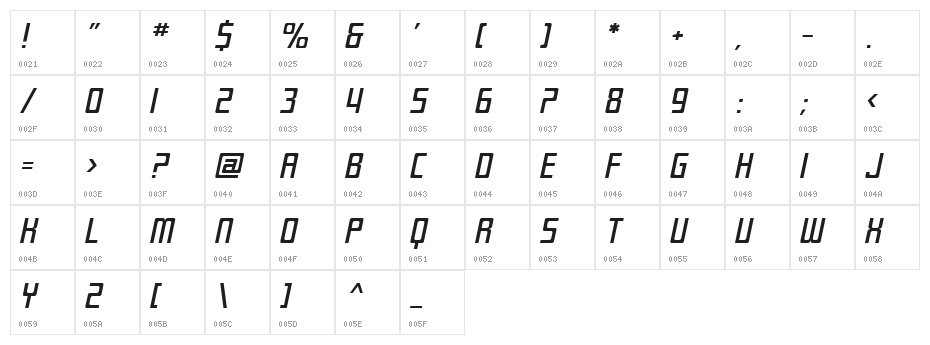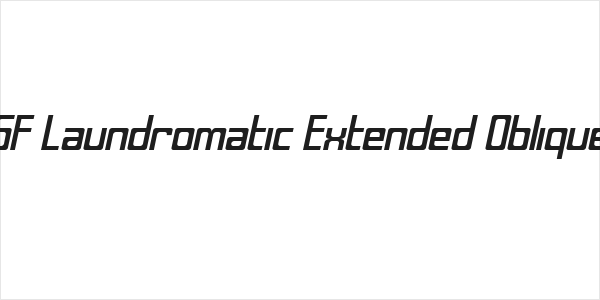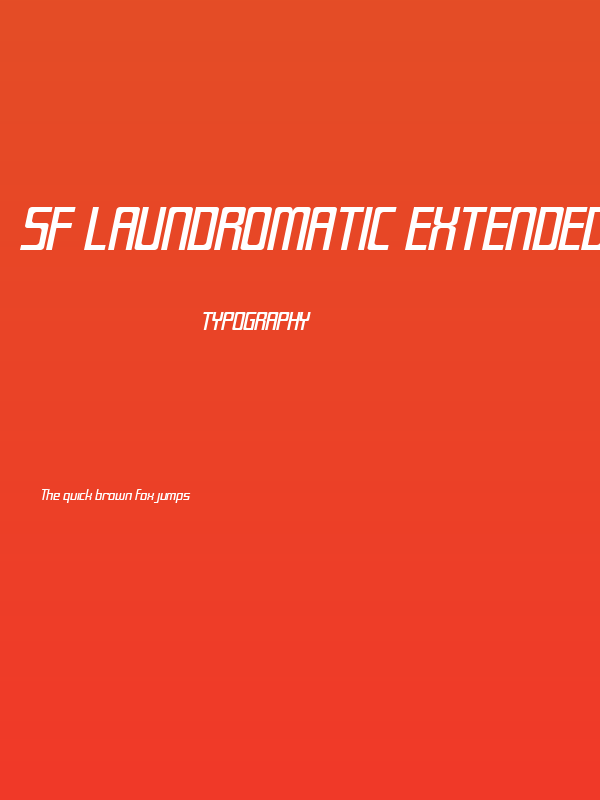
SF Laundromatic Extended Oblique Font
SF Laundromatic Extended Oblique Description
This font features a modern, futuristic design with an extended and oblique style. The characters are sleek and angular, giving a sense of motion and speed. The uppercase and lowercase letters maintain a consistent geometric form, while the numerals and special characters complement the overall aesthetic. The font's extended width and oblique slant add a dynamic and contemporary feel, making it suitable for projects that require a bold and distinctive look.
| Proposed Projects | Ideal for technology branding, sports team logos, futuristic posters, and dynamic web design. |